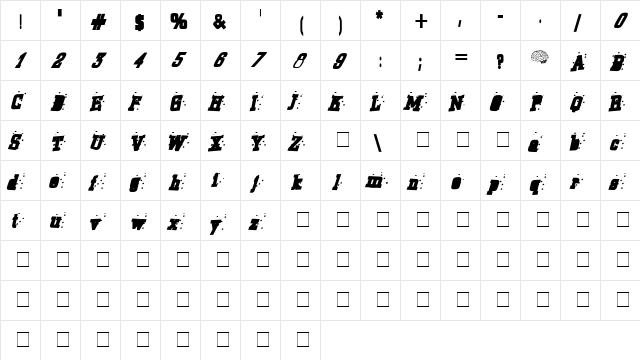
Barbs Typewriter Medium
Design Context for Barbs Typewriter Typeface
Barbs Typewriter uses fixed-width spacing throughout, giving it the structured, systematic character associated with coding environments and technical documentation.
Pro Tip: Use Barbs Typewriter with slightly increased line-height for extended reading — fixed-width spacing can feel dense in longer passages without extra breathing room.